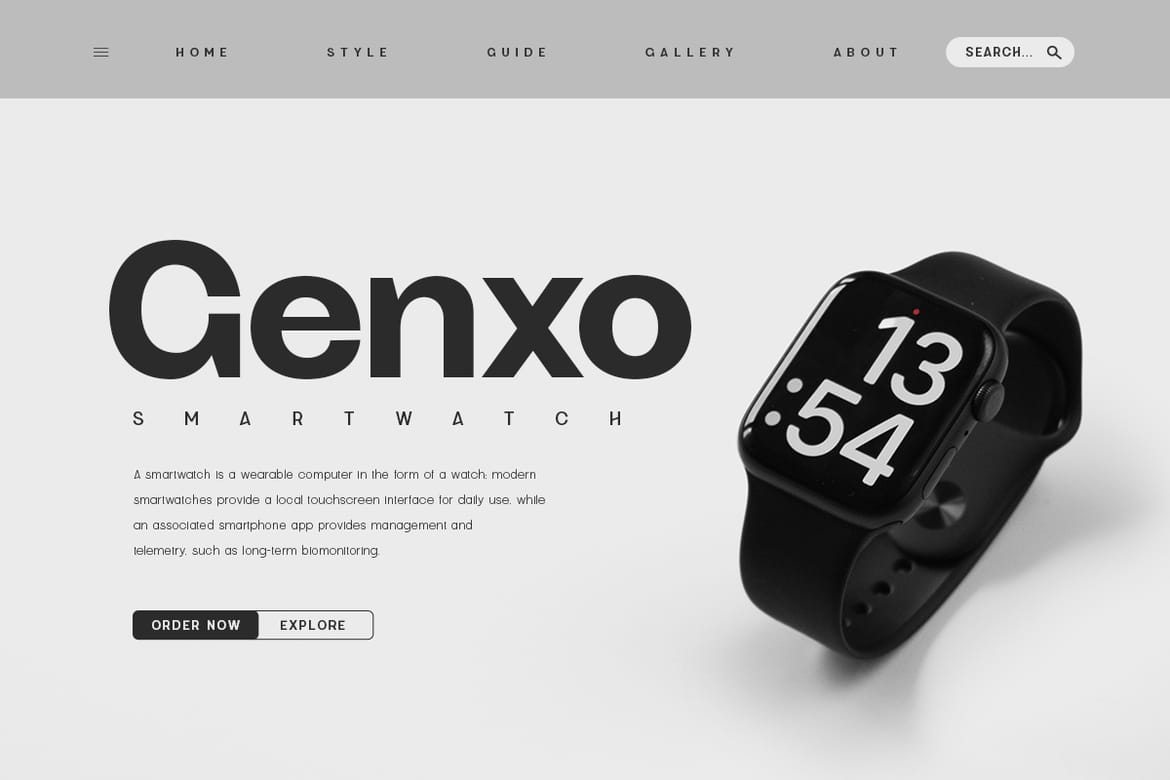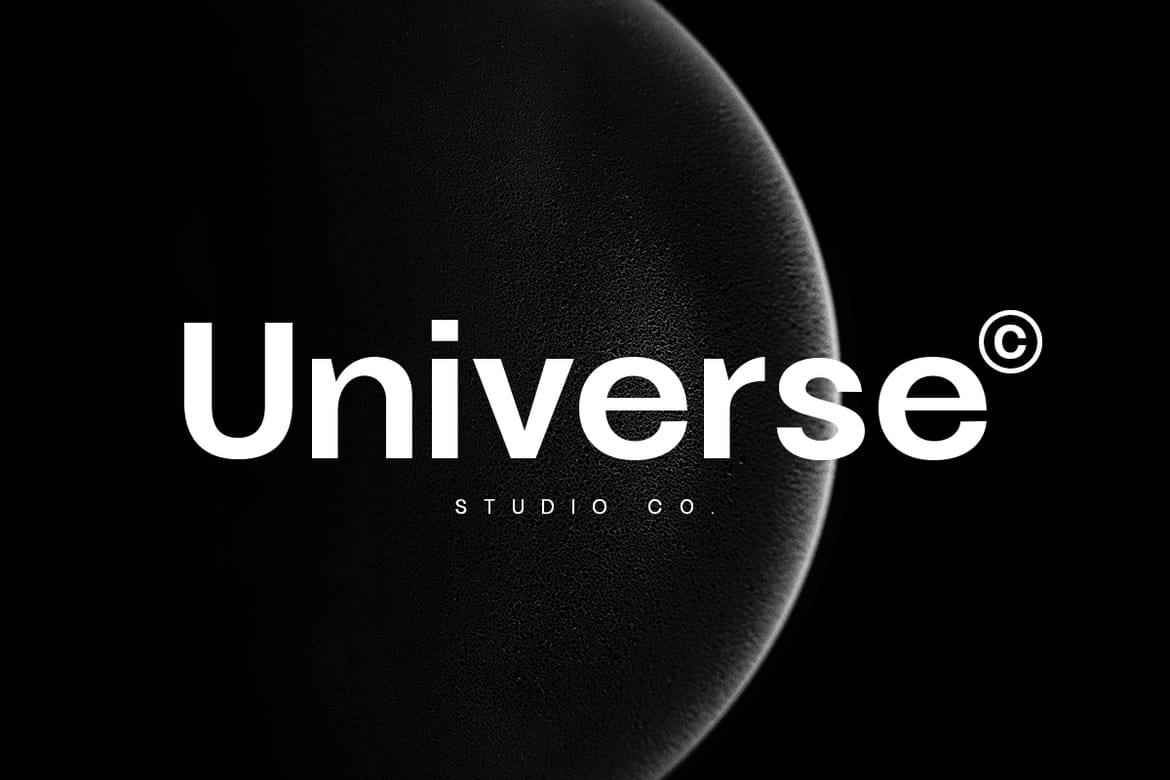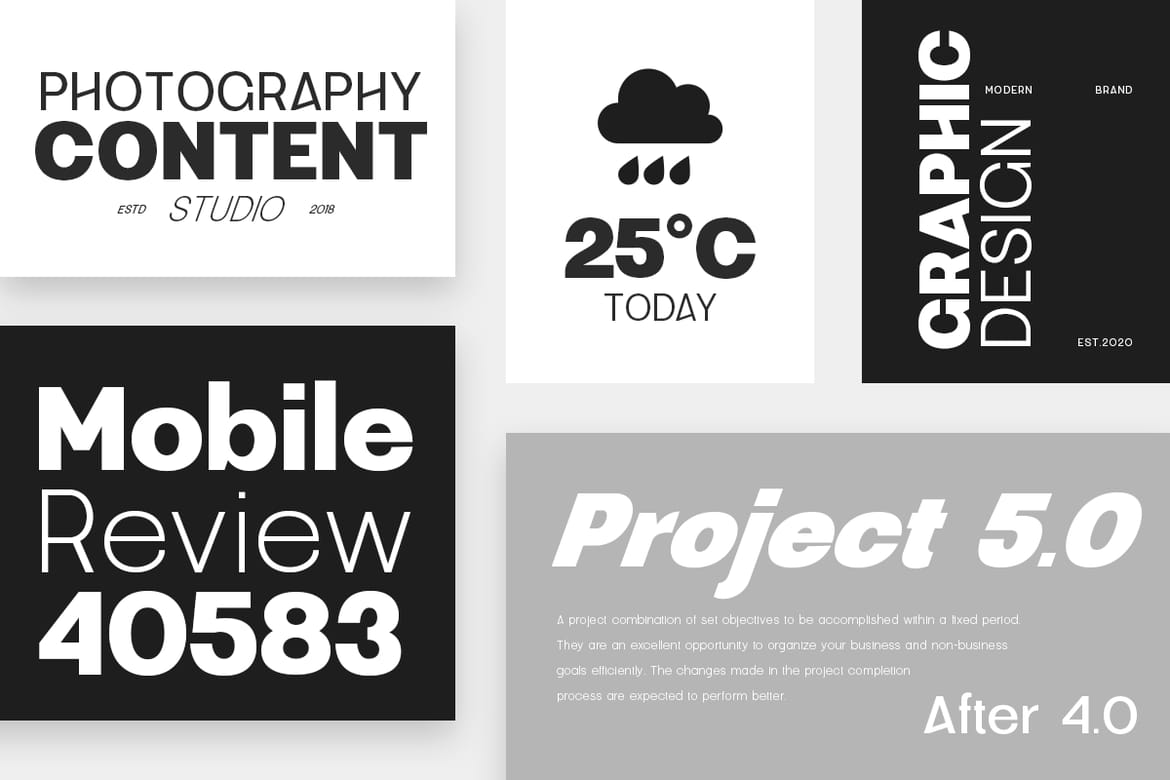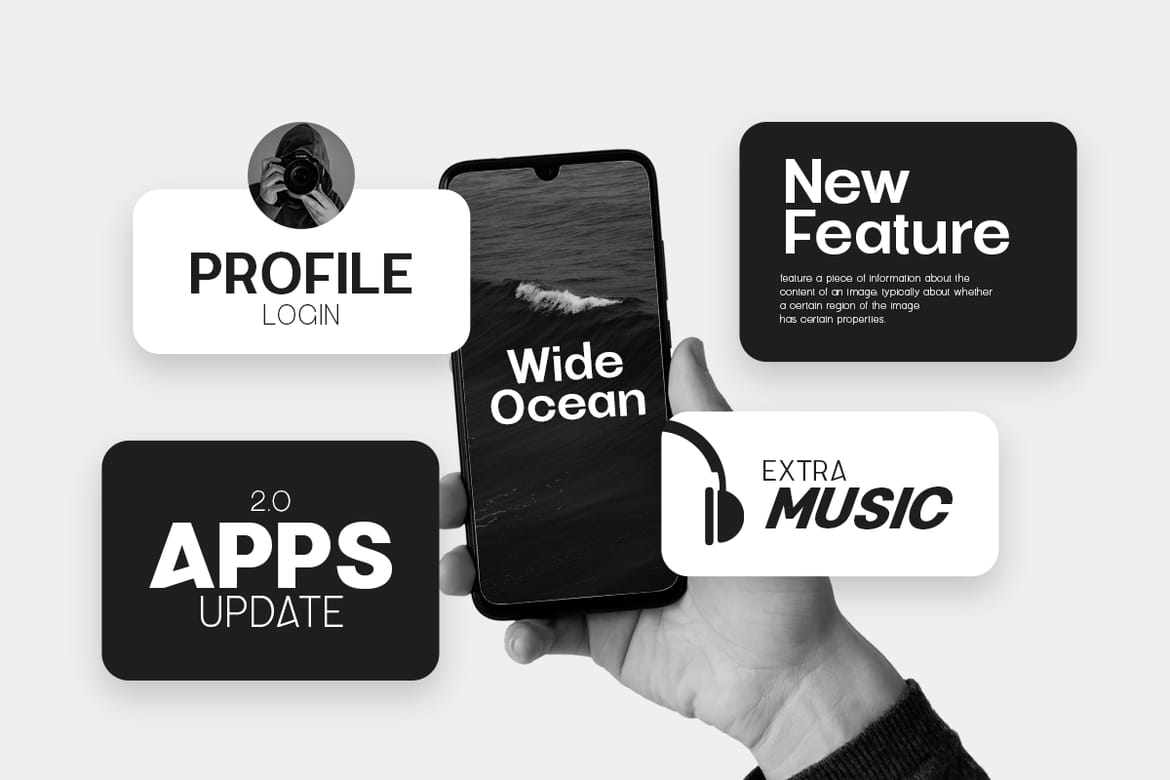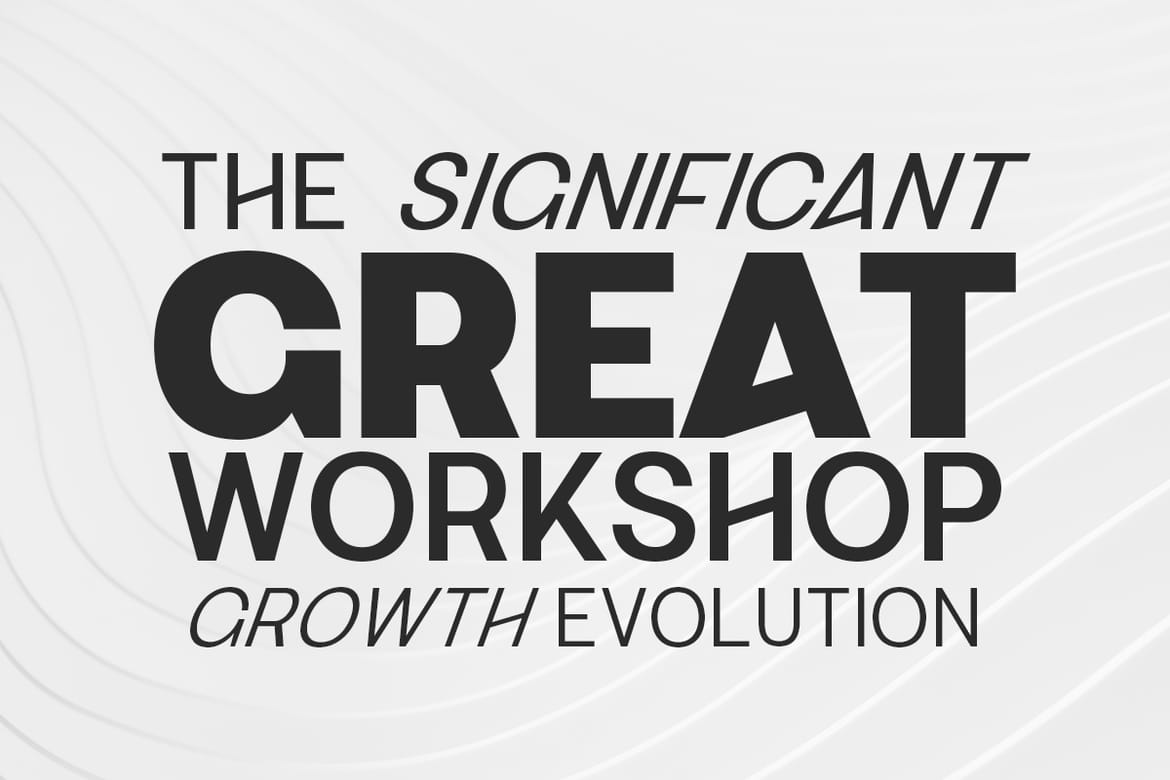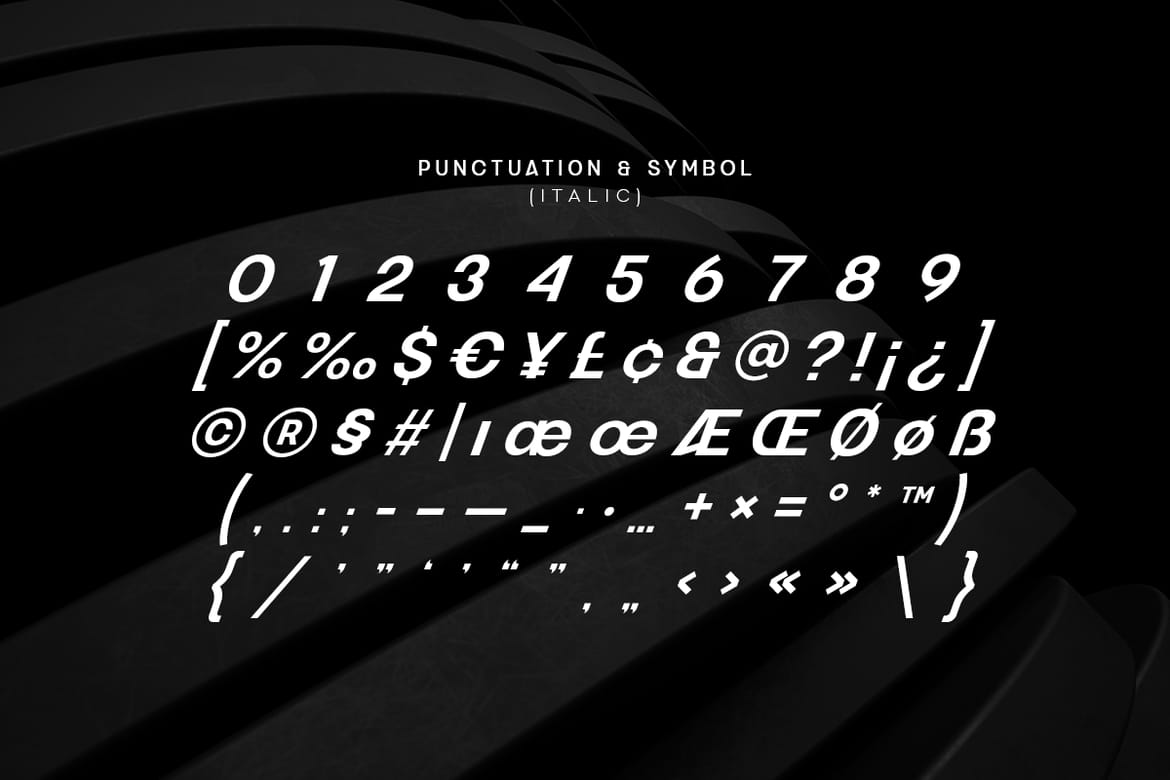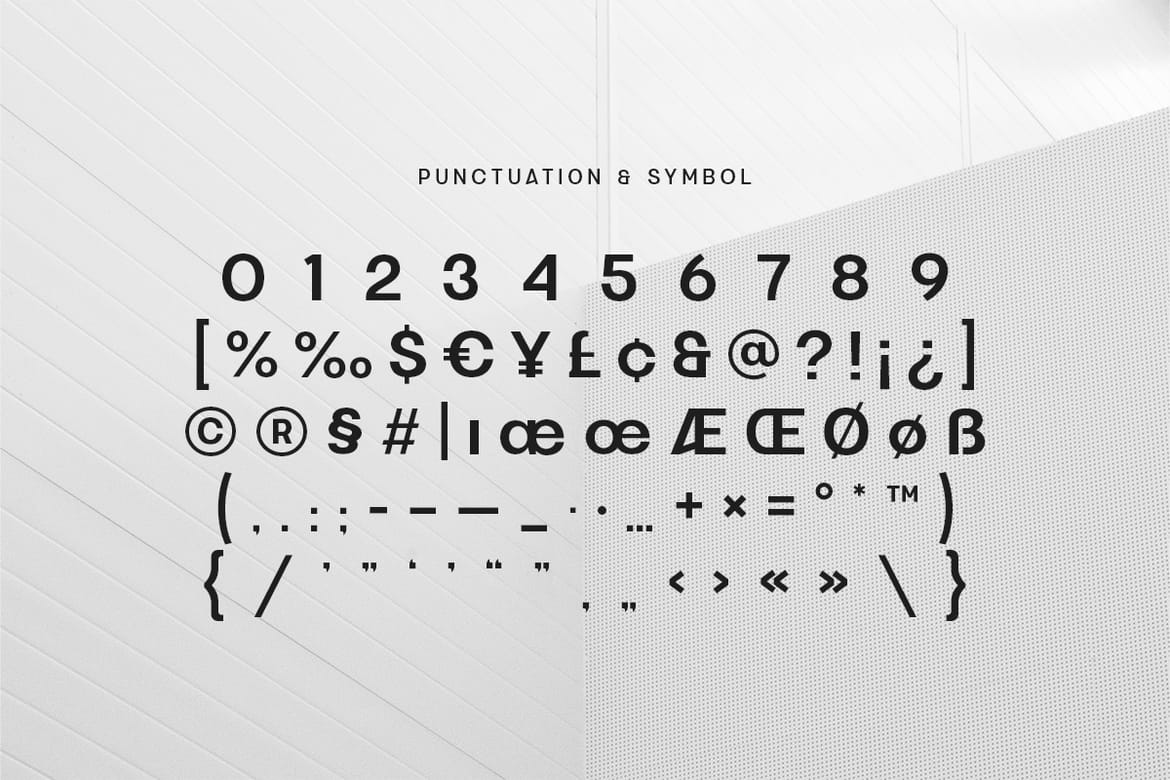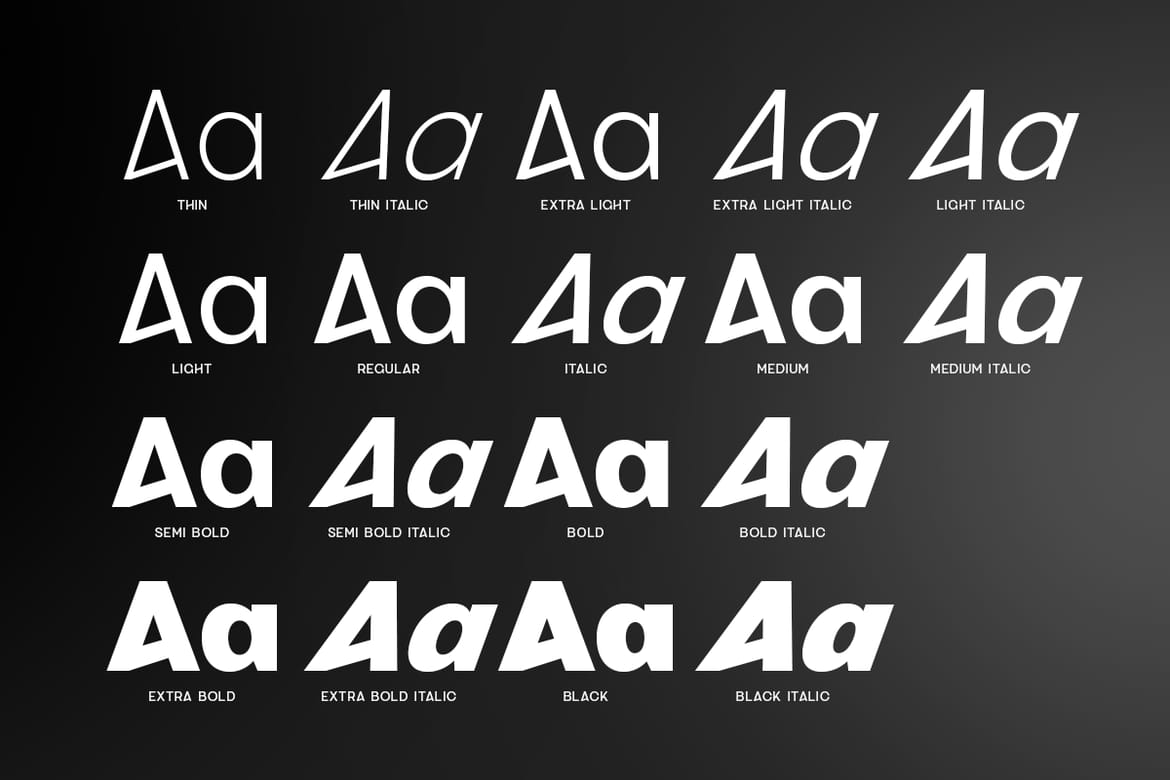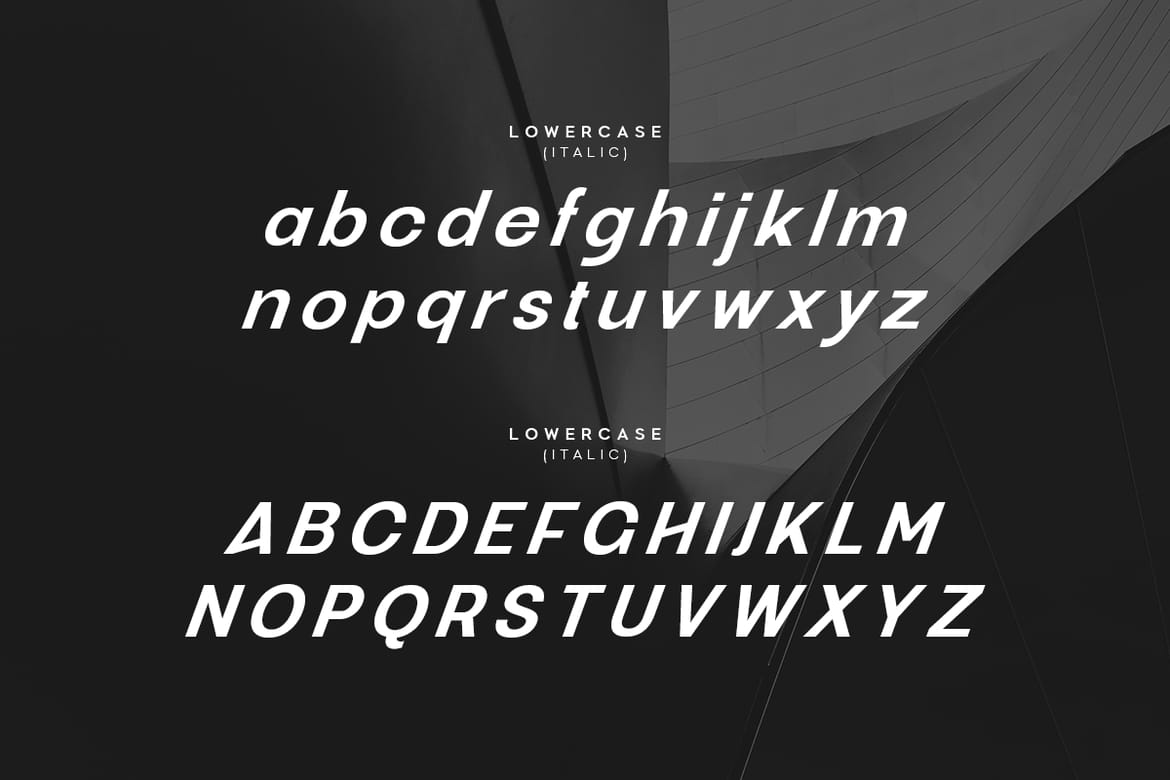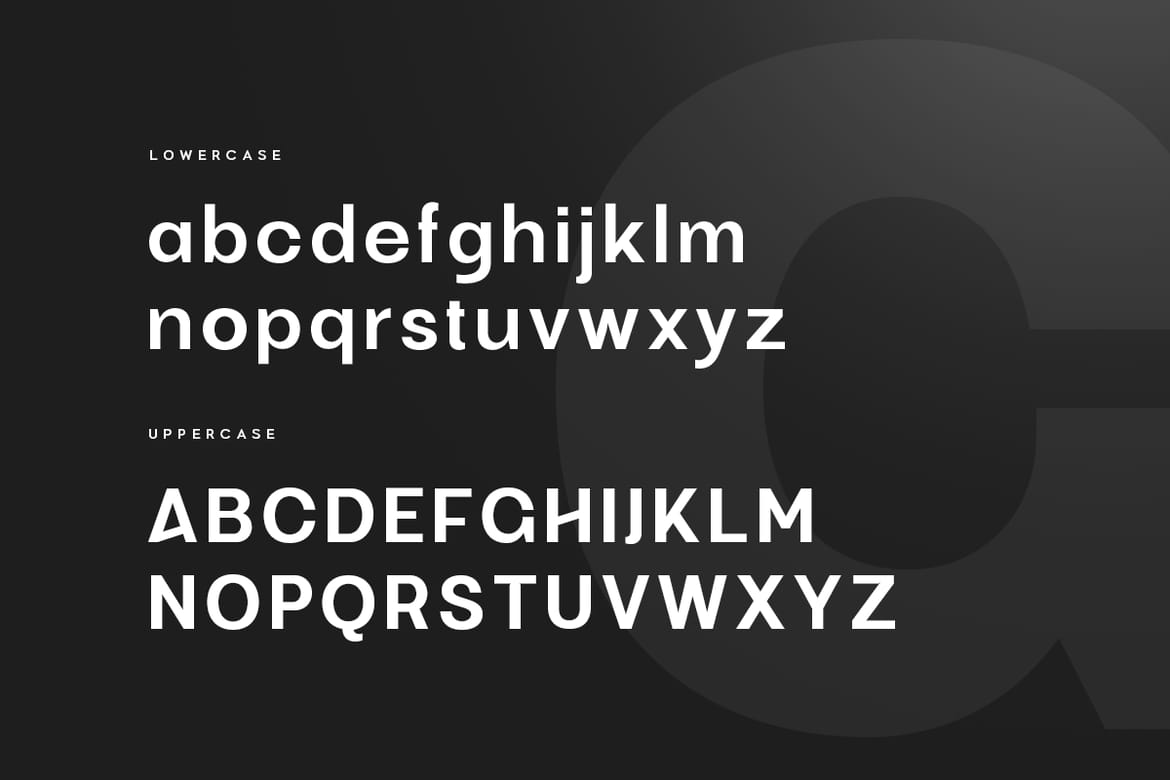
Grainy – Modern Display Sans Serif
Grainy is a Modern Display Sans Serif that created special for Branding, Title and more stand out typography needs, with extra alternative styles that make your design more memorable. It's so perfect to add your style and headline overview for business, technology, actions, and minimalist theme. And specially for this font, we crafted for minimalist style and modern feels so enjoy to create any project that will show your main idea out. What's Included: Grainy Extra 18 font Style (OTF/TTF/WOFF/WOFF2) Character set A-Z Uppercase & Lowercase Numerals & Punctuation Accented Characters (West Europe) Works on PC & Mac
• 18 alternative display styles
• Modern minimalist branding font